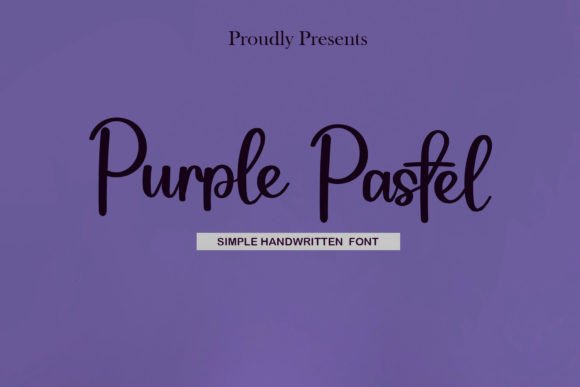
Purple Pastel Font
Unleash the magic of Purple Pastel, a captivating handwritten font that will transport you to a realm of elegance and sophistication. Its contemporary allure and impeccable form evoke the timeless essence of classic calligraphy, promising to elevate your designs with a touch of timeless grace.
Immerse yourself in the world of Purple Pastel and discover its versatility. This font is a symphony of flowing strokes and alluring curves, each letter a masterpiece waiting to be discovered. It dances gracefully across your screen, weaving a tapestry of creativity that will leave you breathless.
Purple Pastel is not just a font; it's an invitation to unleash your imagination. Its enchanting personality will captivate your audience, inviting them to embark on a journey of self-expression and visual delight. Whether you're crafting personal blogs, designing enchanting logos, or writing heartfelt invitations, Purple Pastel will add a touch of magic to every stroke.
So, surrender to the charm of Purple Pastel and let your creativity soar. With this enchanting font at your fingertips, you'll have the power to transform your designs into works of art that speak volumes without uttering a single word.